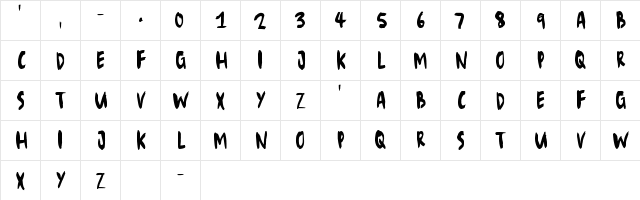
EliseNo7 Regular Font Preview
EliseNo7 Regular
EliseNo7 Regular Font Details
| Designer | Zaffar Sabbir |
Design Context for EliseNo7 Typeface
EliseNo7 is a composed and adaptable typeface that performs quietly and consistently across a wide range of design contexts.
Pro Tip: Use EliseNo7 in both headline and body roles to test its range before committing to a single application.